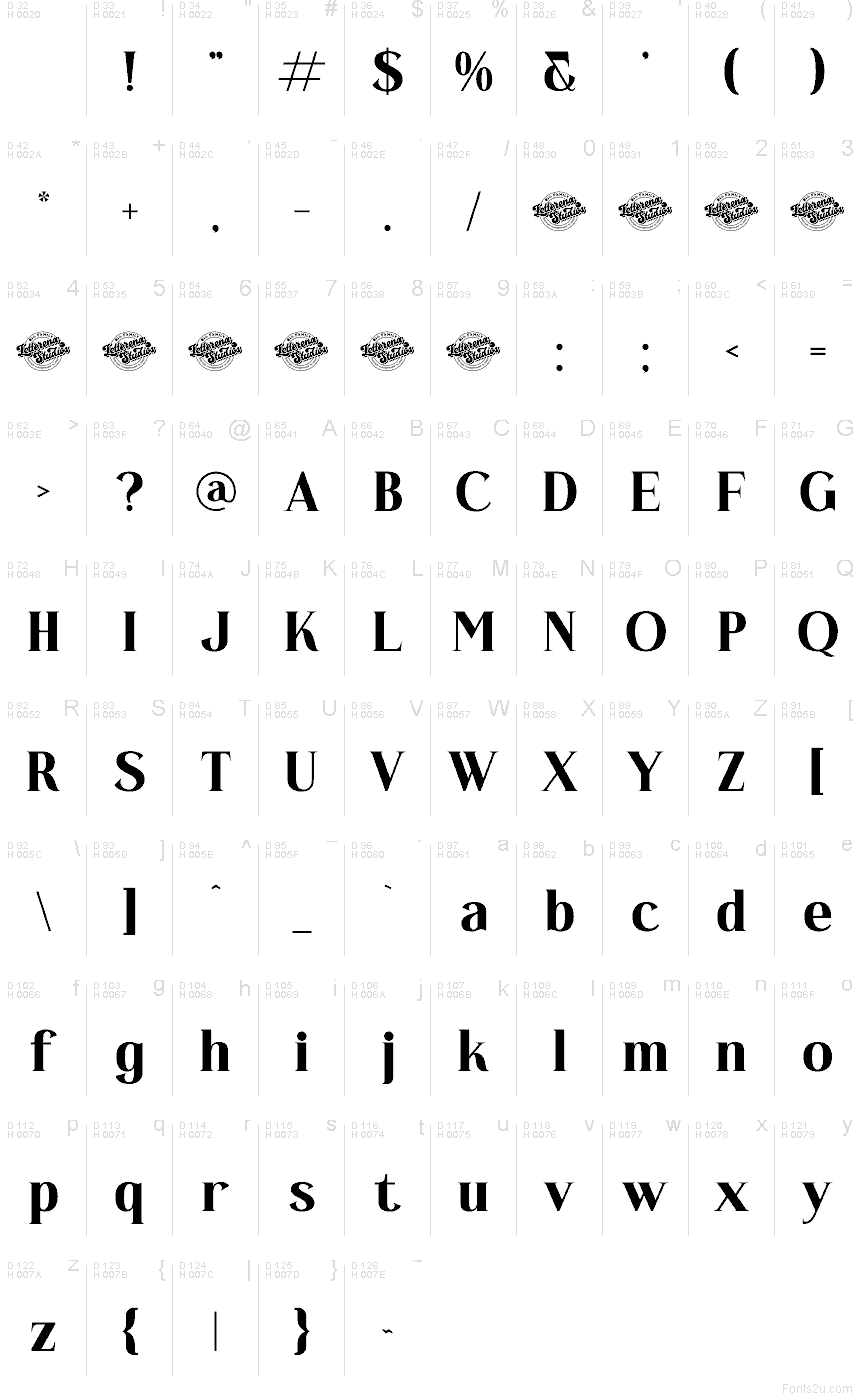
Sunny Oasis by Letterena Studios is a free high-contrast serif with a soft editorial mood. The letters pair sharp, graceful curves with a gentle, almost calligraphic flow, so the font feels refined rather than severe, with the sweeping S and hooked y giving the style its quiet signature.
It suits boutique branding, beauty packaging, magazine cover lines, wedding stationery, and cafe menus where a free font can carry a dressed-up tone without turning ornate. Use it in short headlines, logos, or monograms when you want classic serif poise with a slightly romantic finish.